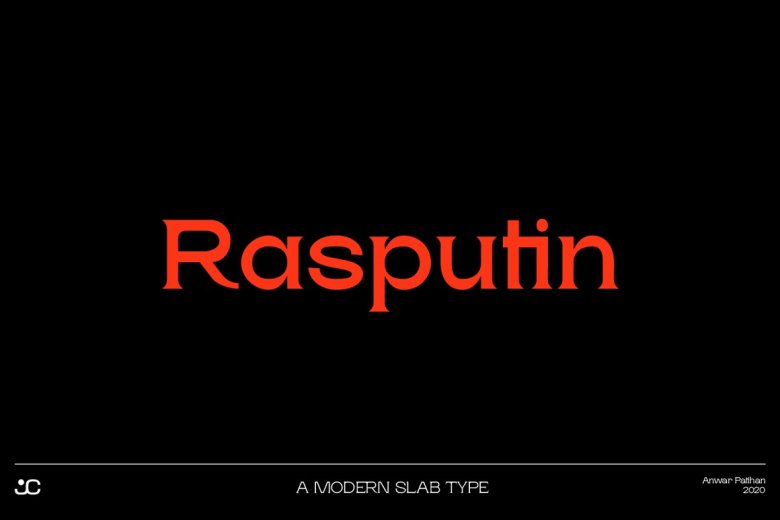
Rasputin Serif Font
Rasputin Serif Font has been carefully designed with beautiful details and abundant variety. It’s designed and shared by Jehoo Creative. This Typeface is a sharp, curvy and versatile modern slab serif typeface with 4 weights.
These are complemented by unique discretionary ligatures that pay attention to detail to make this font stand out and stand out in all its shapes and weights. Its sharp uniqueness, for example in the letter “A R K” provides a great personality type in the title and body text while maintaining optimized readability.